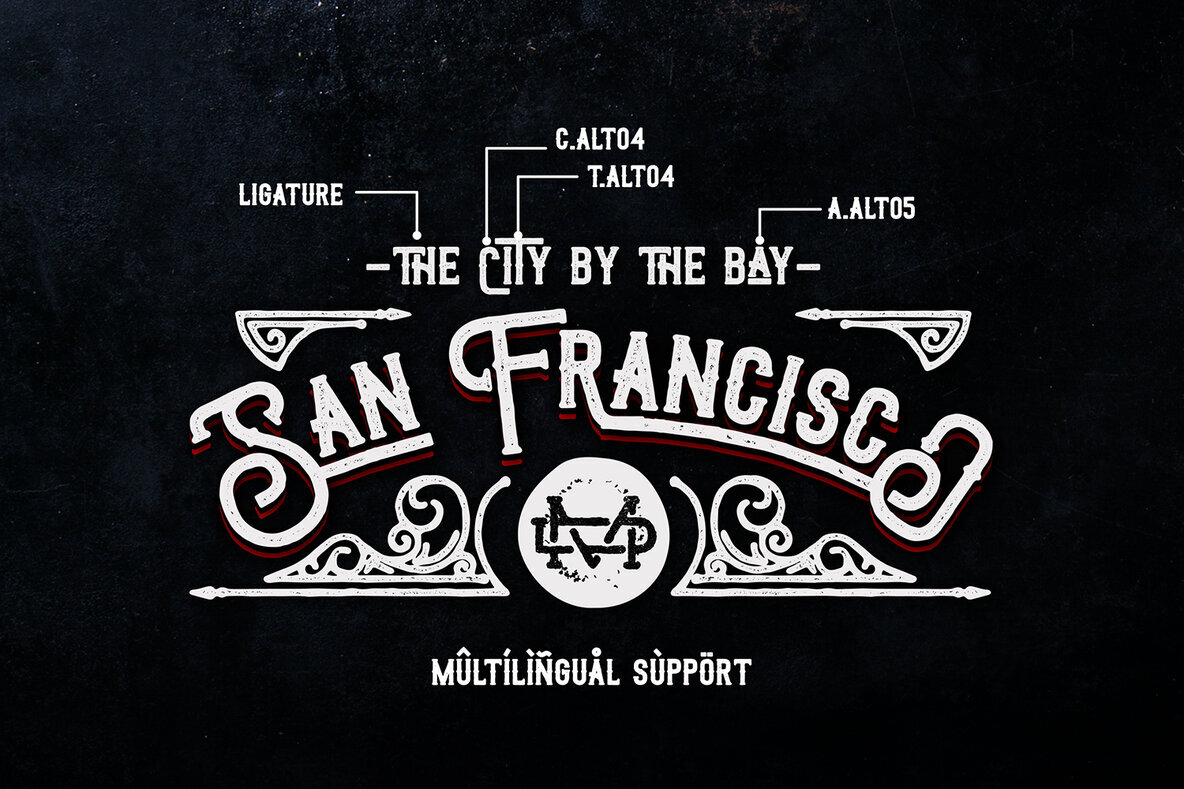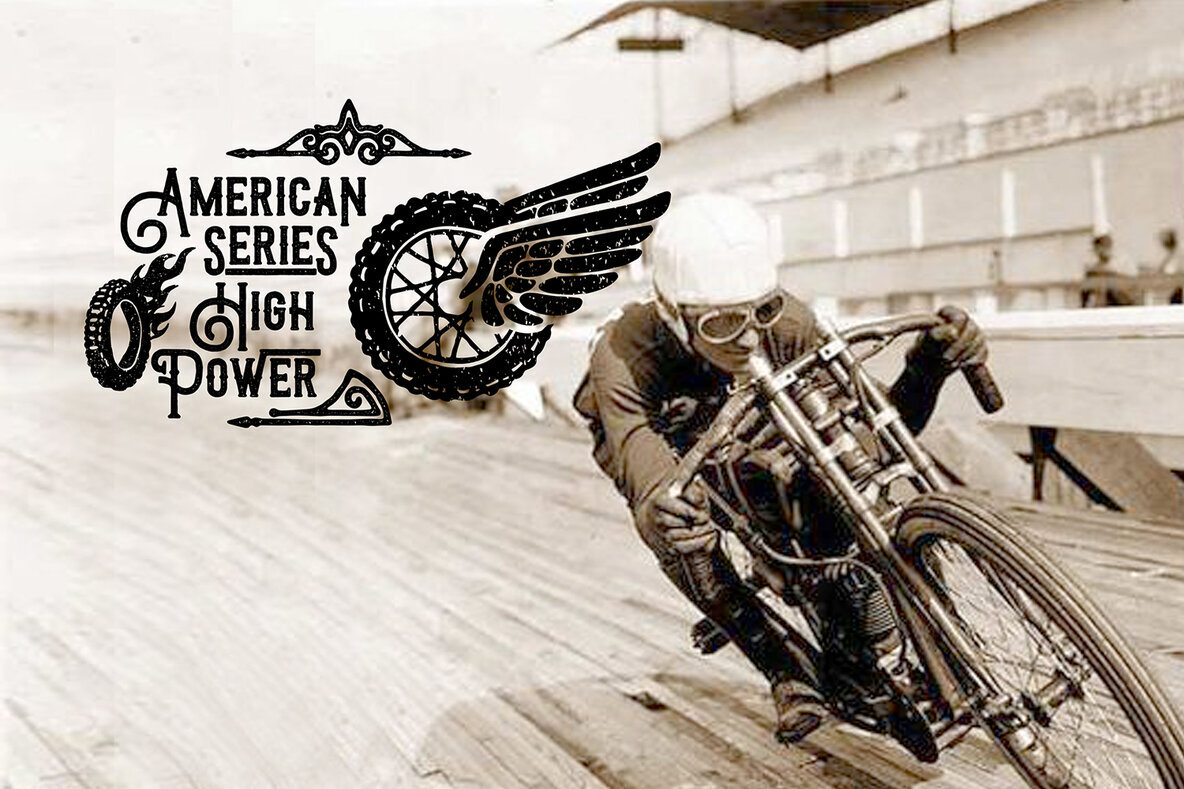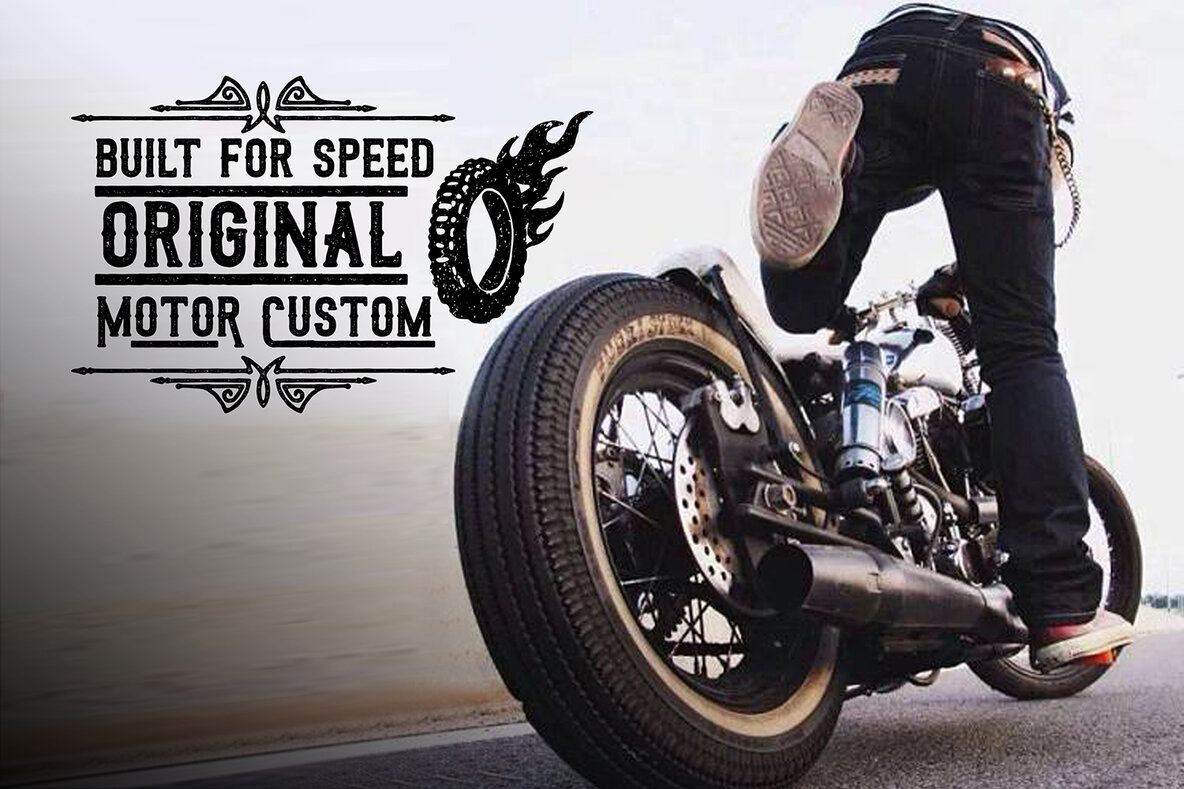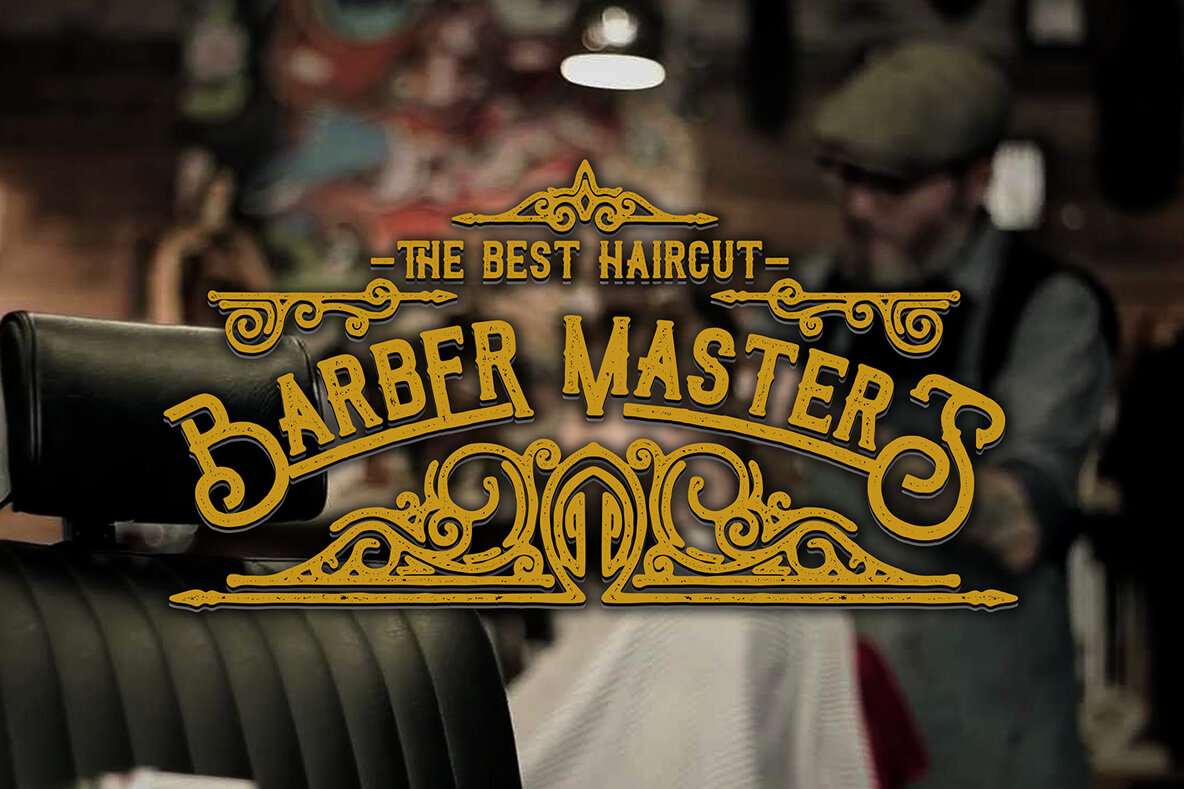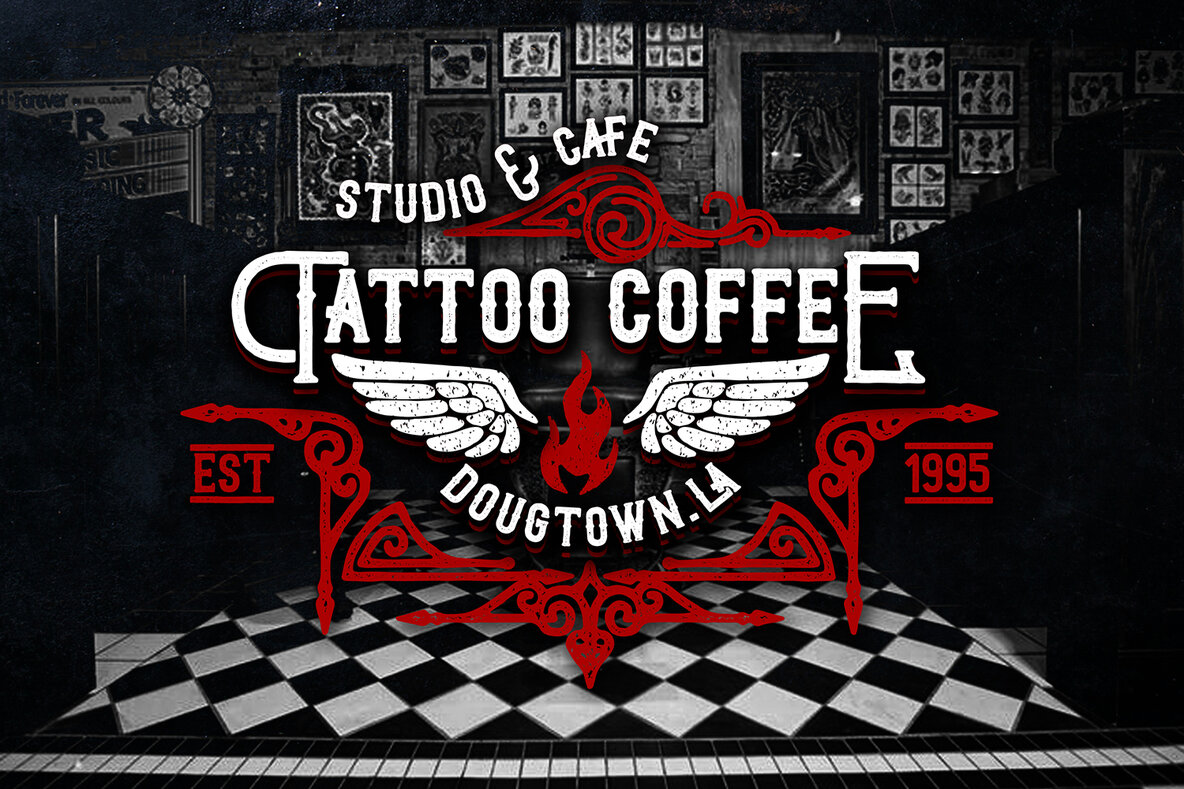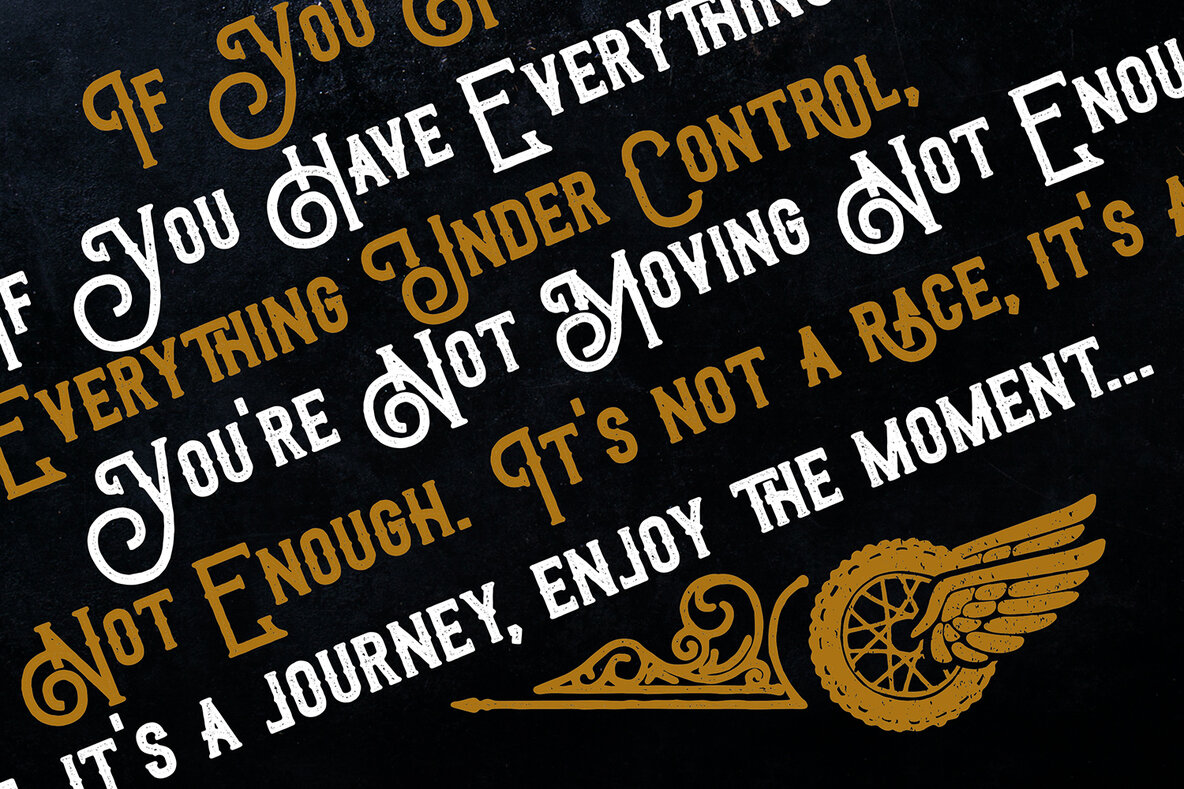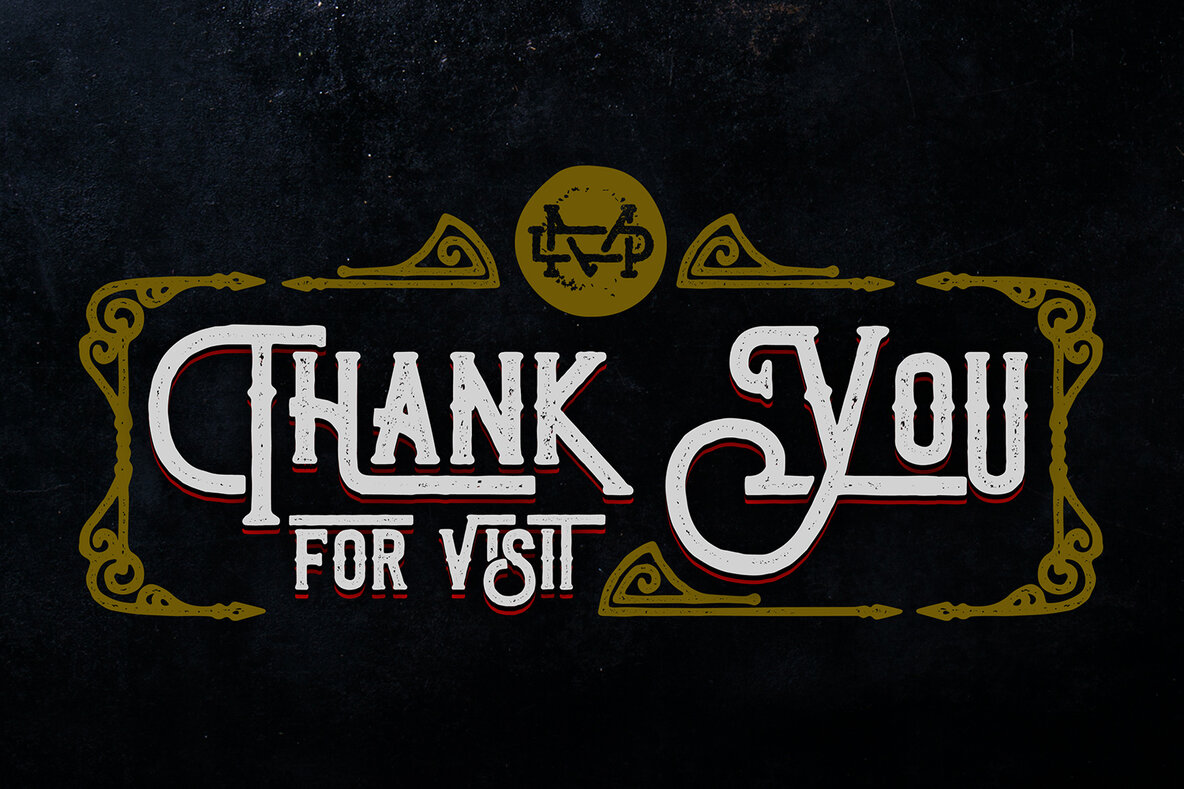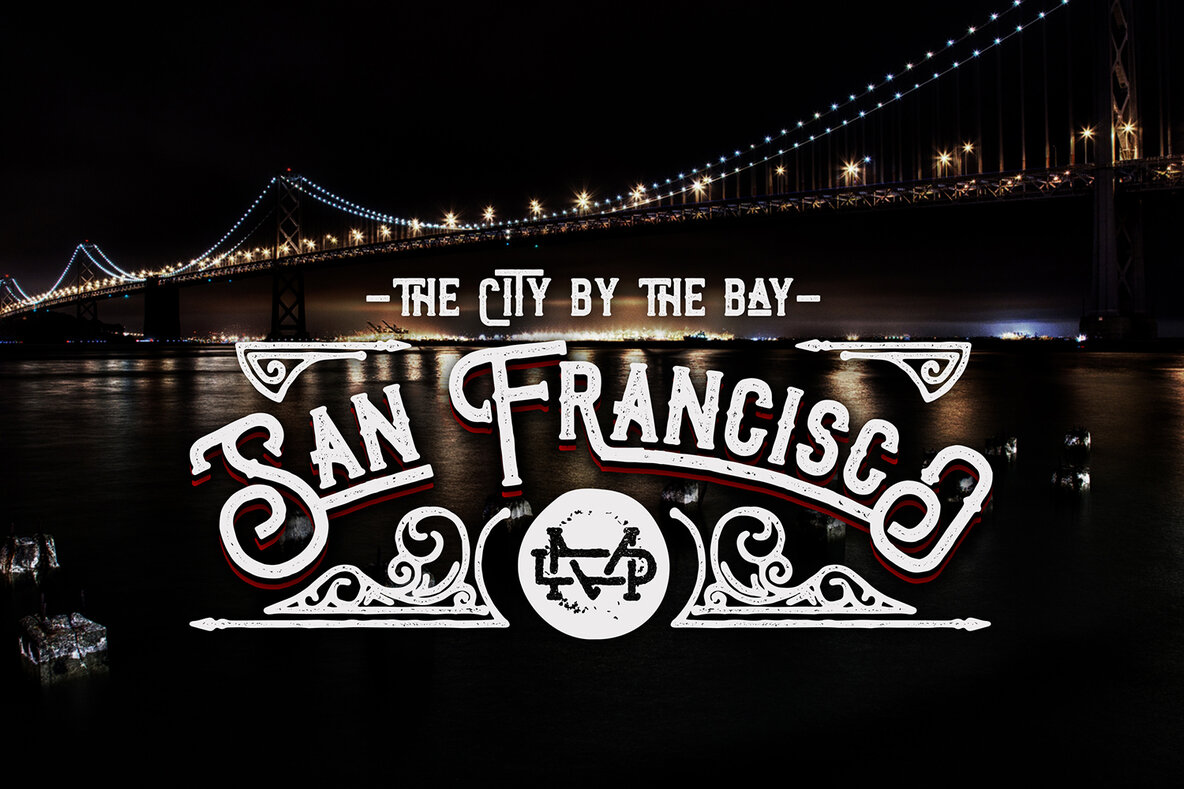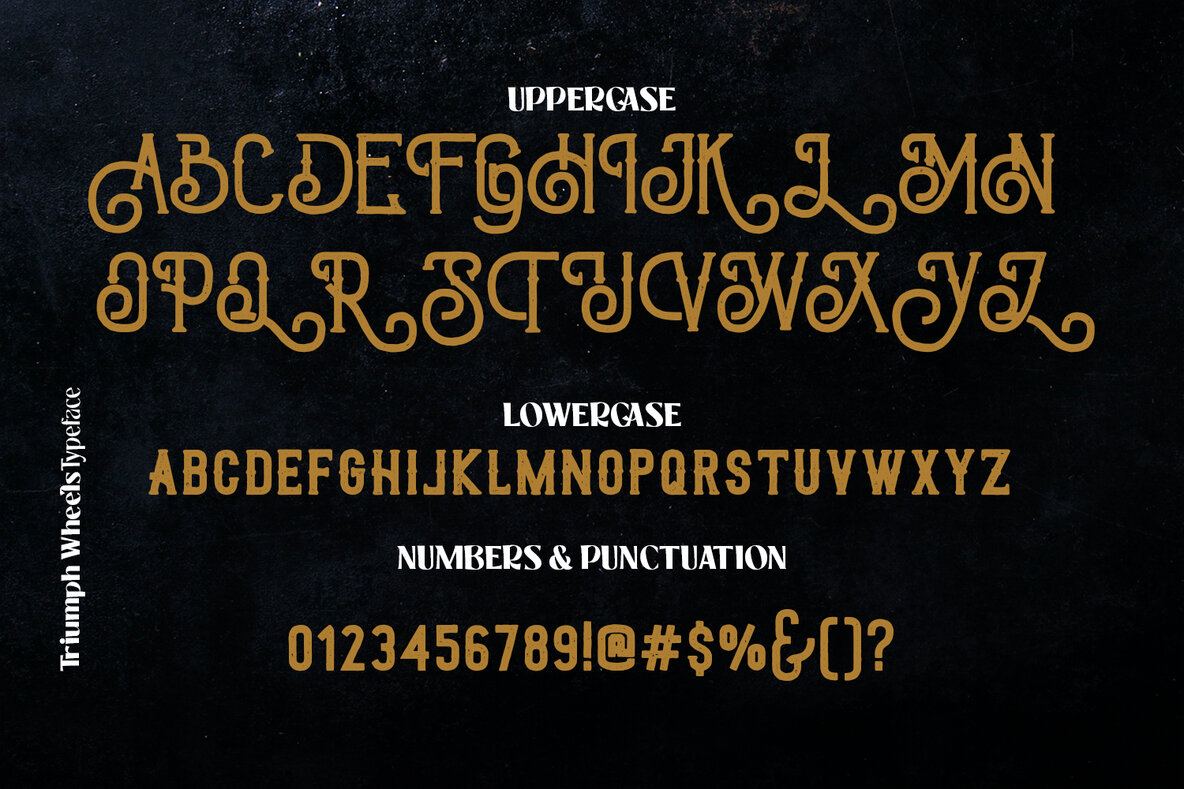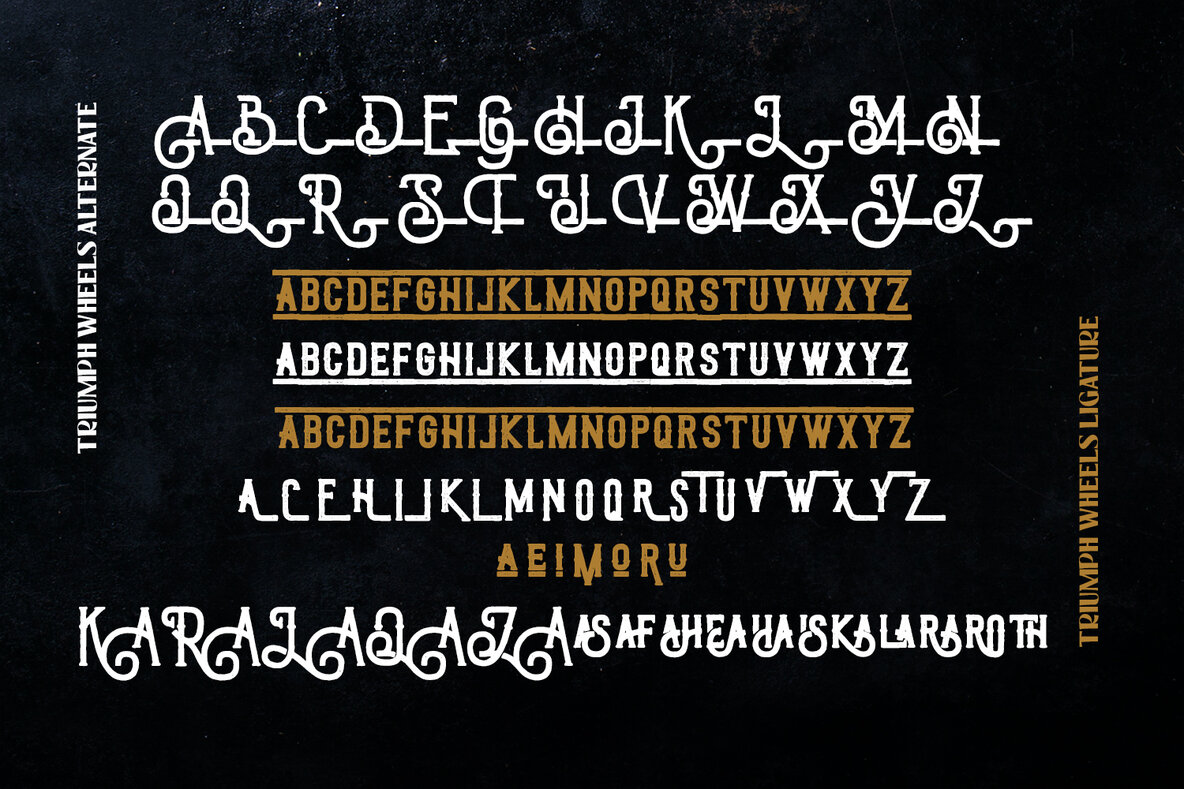
Triumph Wheels Font
Triumph wheels
Triumph wheels rough
Triumph Wheels brings the essence of American style to your design projects. With over 350 glyphs, this font offers a unique character that's both versatile and charismatic. Perfect for applications across various media, Triumph Wheels is an excellent choice for designers looking to imbue their work with a distinguished flair.Triumph Wheels: An American-Inspired Typeface